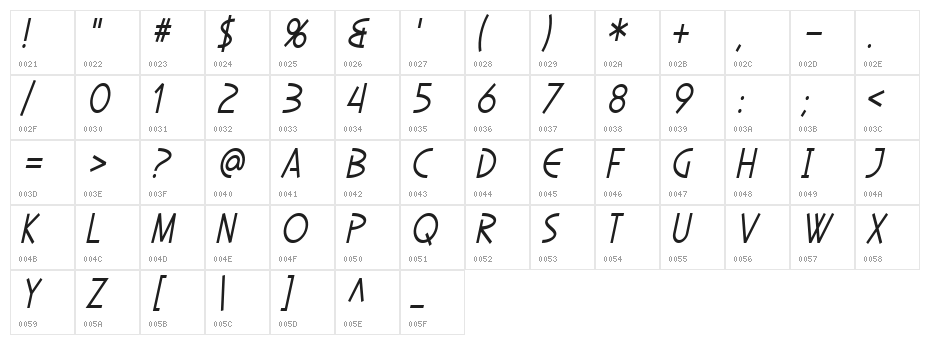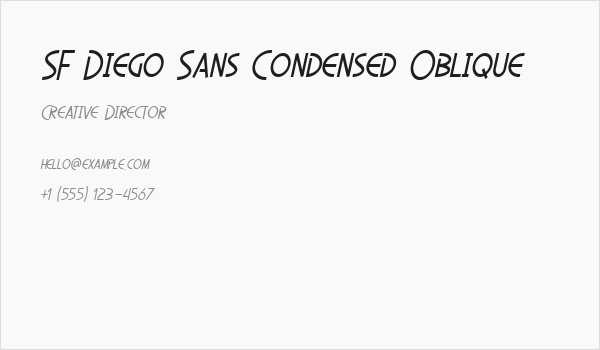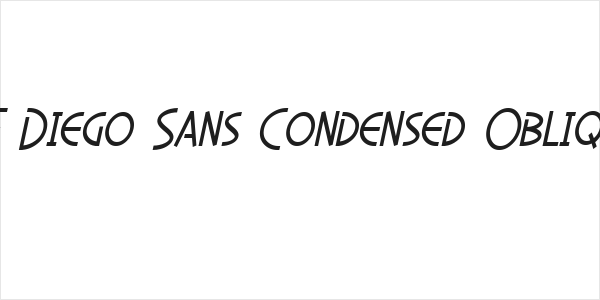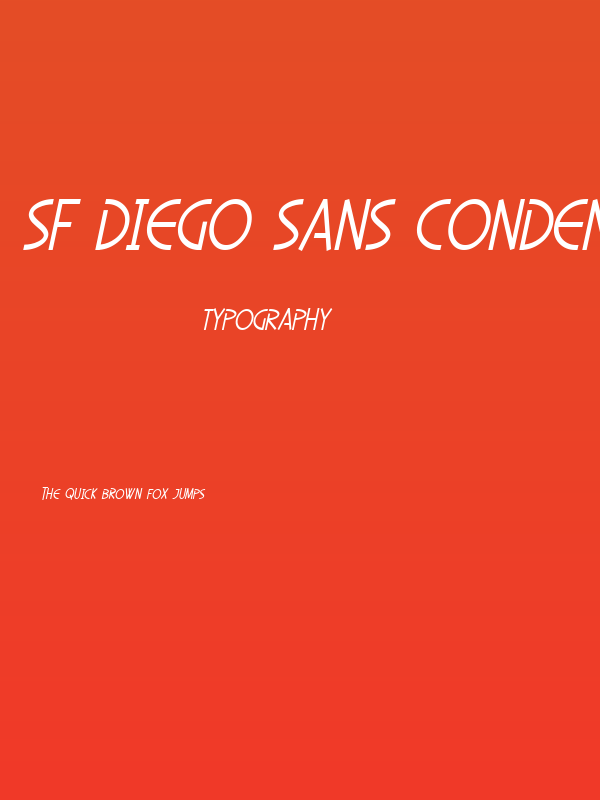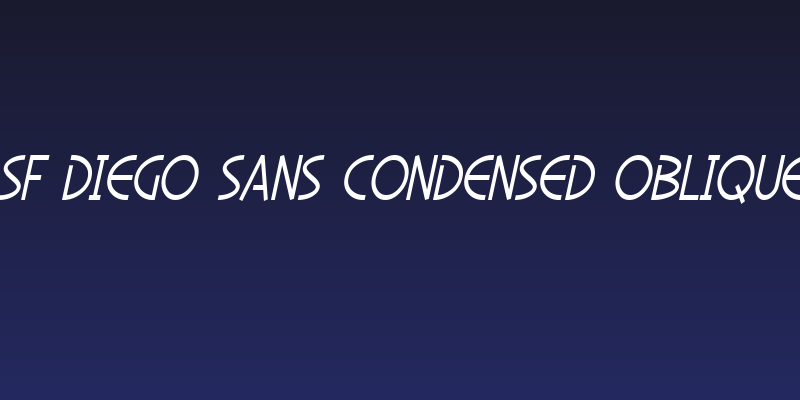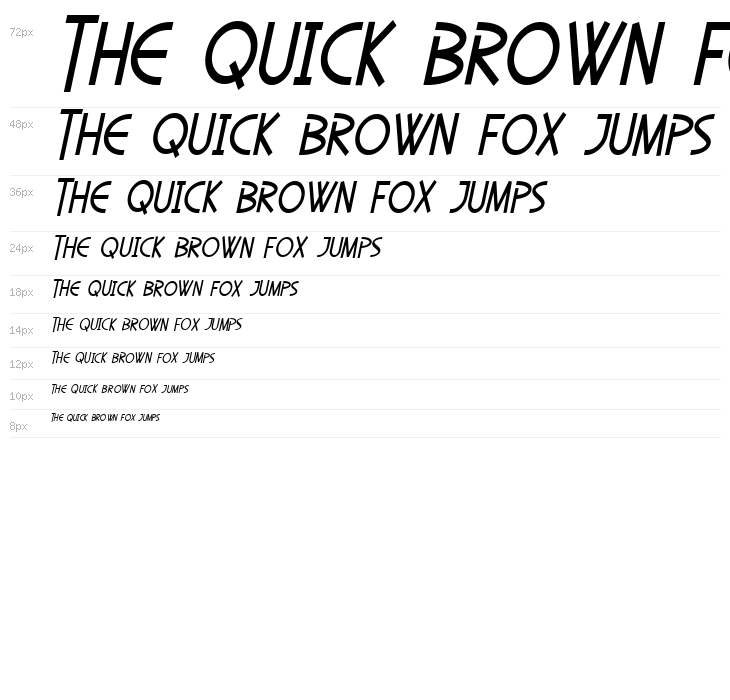
SF Diego Sans Condensed Oblique Font
SF Diego Sans Condensed Oblique Description
This font features a sleek, modern design with a condensed and oblique style. The characters are sharply angled, giving a dynamic and forward-moving appearance. The strokes are consistent in weight, providing a uniform look across all characters. The uppercase and lowercase letters maintain a cohesive style, with a slight slant that adds a sense of motion. The numerals are clear and easily distinguishable, complementing the overall aesthetic. Special characters are included, maintaining the same angular and condensed design, ensuring versatility in various applications.
| Use Case | Headlines, Logos, Advertising |
| Proposed Projects | Ideal for branding, advertising, and editorial design where a modern and dynamic look is desired. |